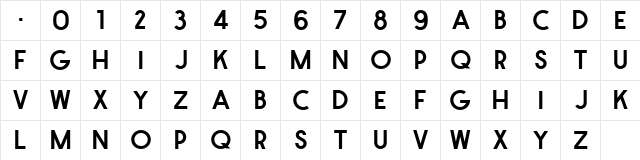
Metalarts 104 20th Century Regular
Design Context for Metalarts 104 20th Century Typeface
Metalarts 104 20th Century is a composed and adaptable typeface that performs quietly and consistently across a wide range of design contexts.